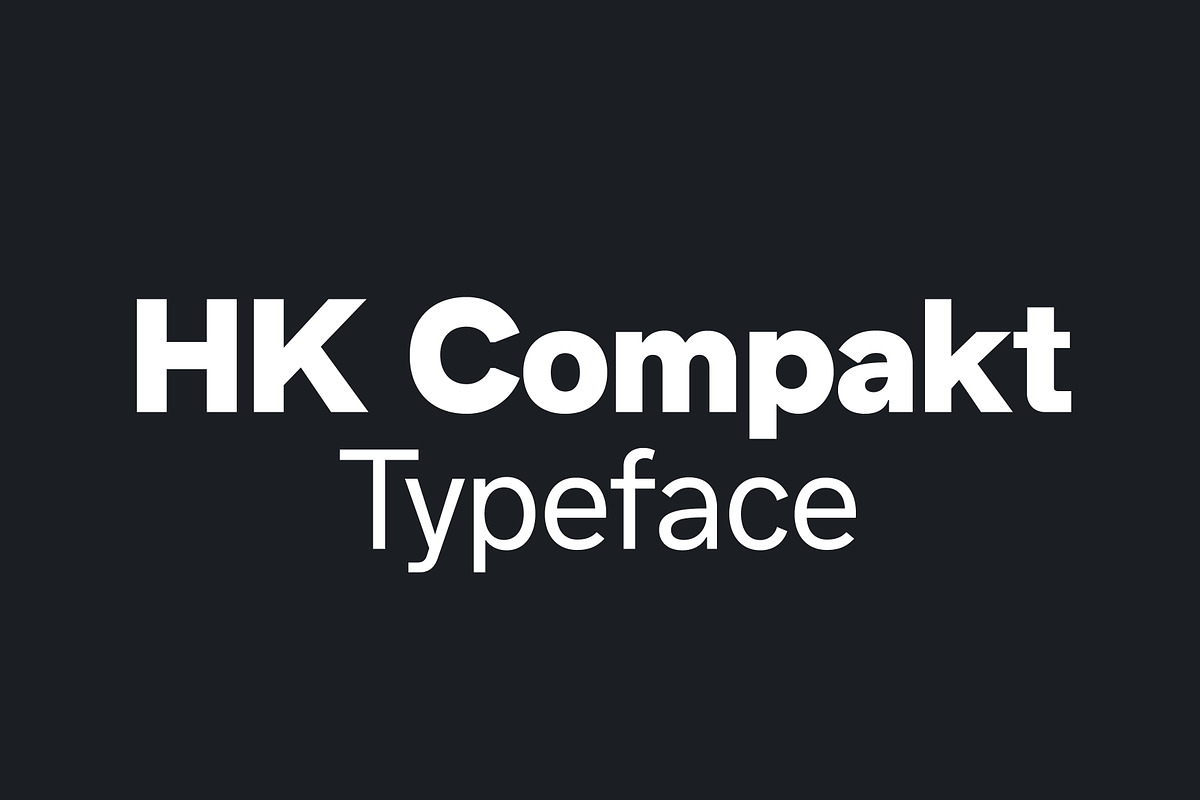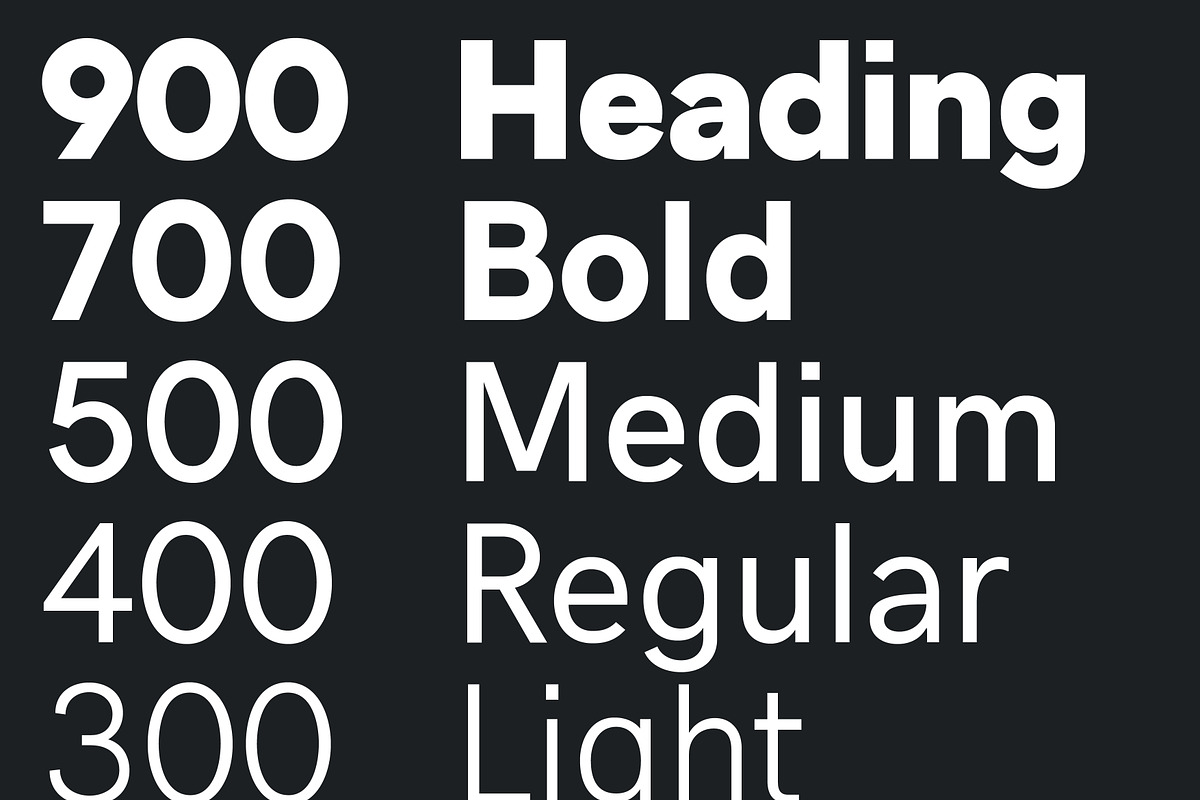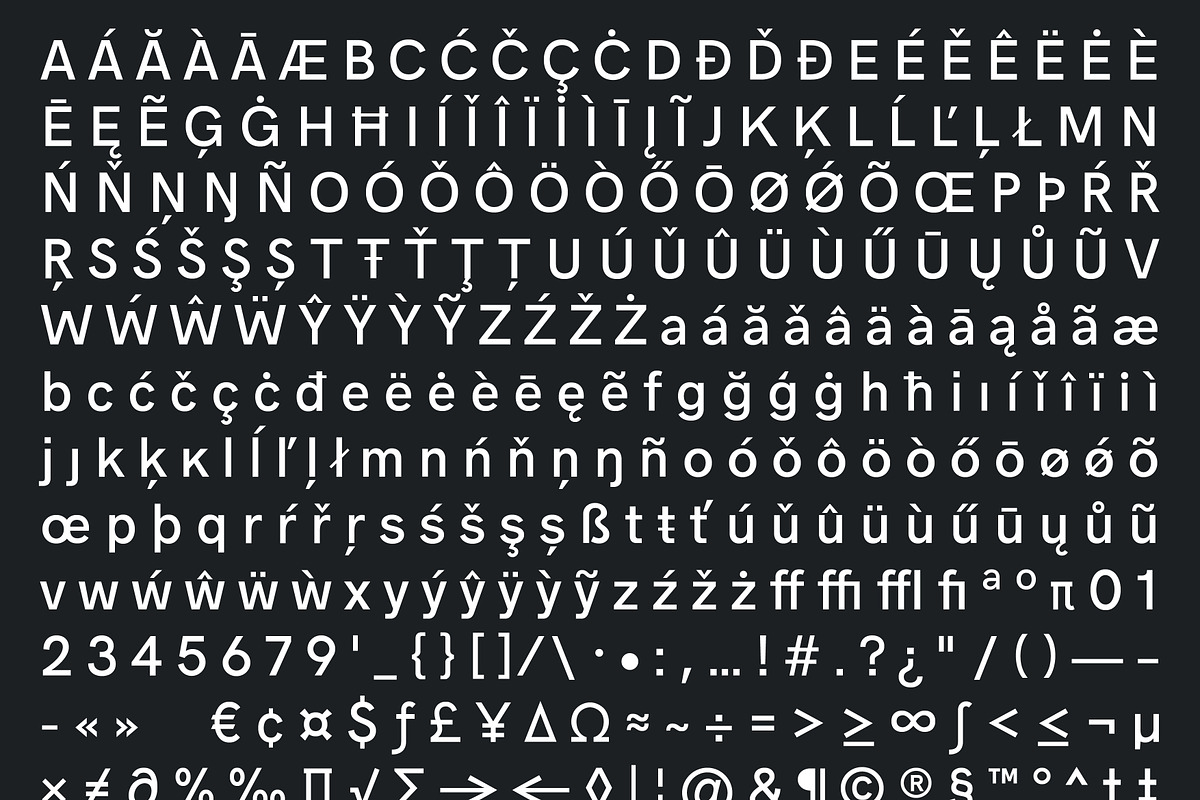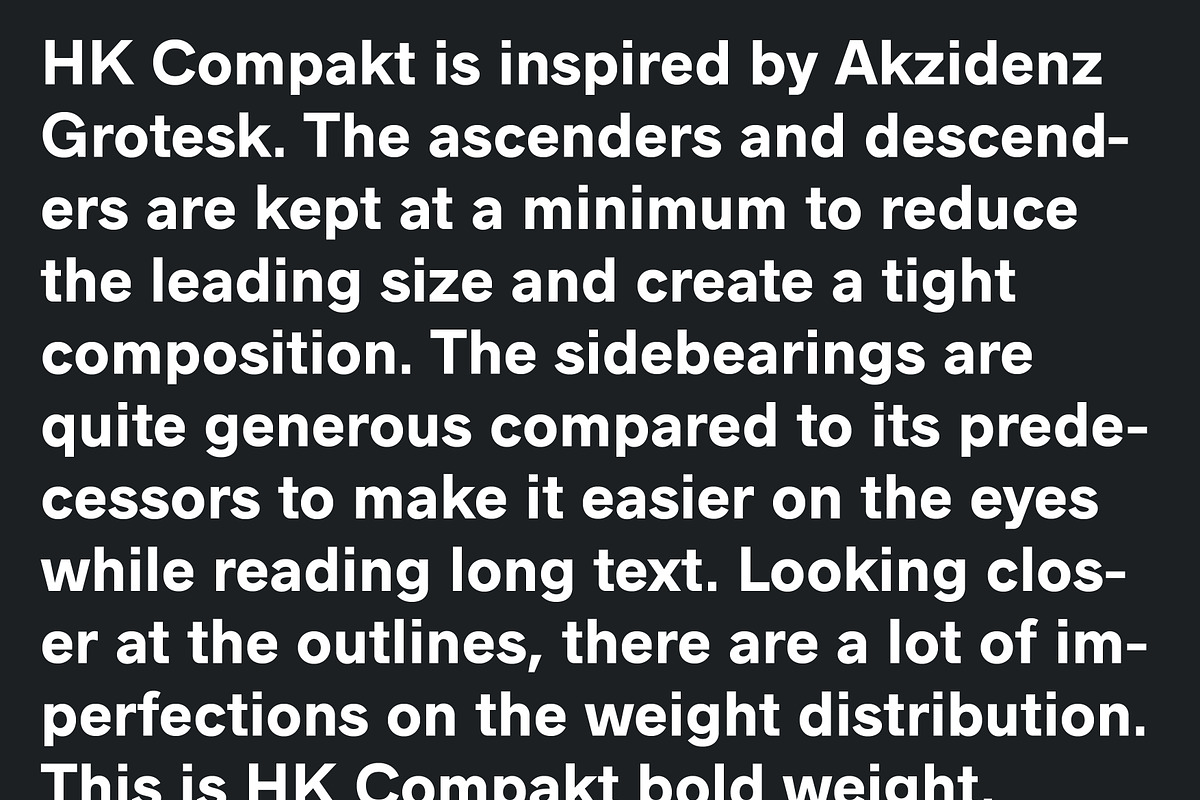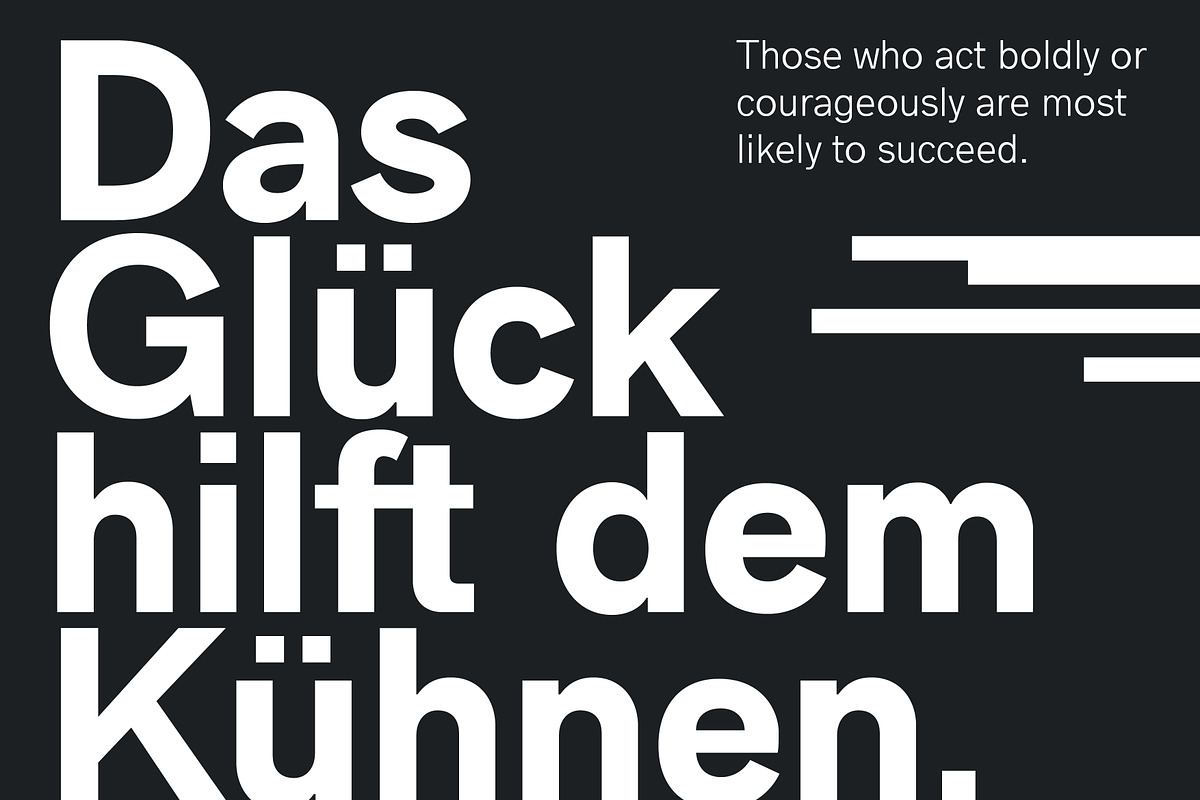
HK Compakt Typeface
HK Compakt is inspired by Akzidenz Grotesk.
The ascenders and descenders are kept at a minimum to reduce the leading size and create a tight composition. The sidebearings are quite generous compared to its predecessors to make it easier on the eyes while reading long text. Looking closer at the outlines, there are a lot of imperfections on the weight distribution.